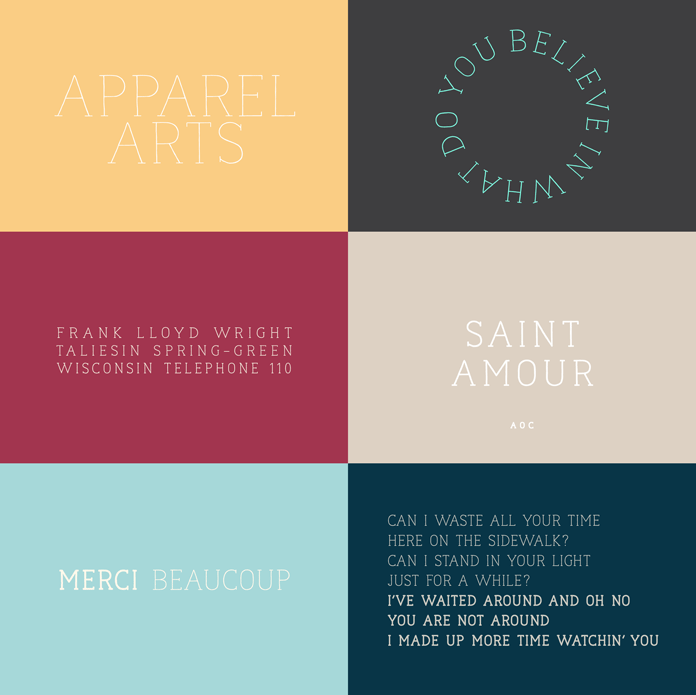
Naïve Line, a hand-drawn serif from French type foundry S&C Type.
The French type foundry S&C Type has been established in 2008 by Julien Saurin, Fanny Coulez, and Louis-Emmanuel Blanc. They mainly specialize in typefaces that offer a very simple and natural look and feel. Their Naïve collection comprises a range of simple, seemingly hand-drawn fonts. One representative of this superfamily is the Naïve Line font pack. As each member of the family, this serif version is based on a simple line construction. The typeface was designed by Fanny Coulez and Julien Saurin and comes in 5 weights including: Light, Regular, Bold, Black and Extra Black. Please read more below or click on the following link.
The Naïve Line font family has been designed for the use in headlines and short text sections. It’s a unique display font that works great in both print and web media. The typeface can be combined easily with all the other representatives of the superfamily. You can use this handwritten typeface for a variety of applications such as logo designs, branding, invitations, and much more. For additional information on all features, just follow the link below.